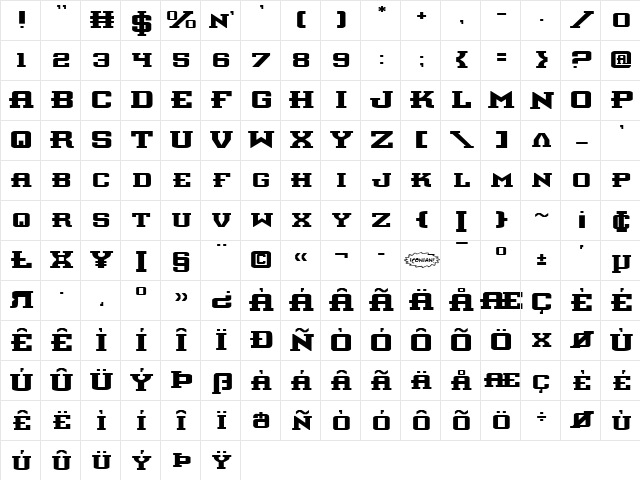
Interceptor Expanded Expanded
Design Context for Interceptor Expanded Typeface
Interceptor Expanded offers clean, dependable letterforms without strong stylistic allegiance, making it a practical choice for designers who need flexibility.